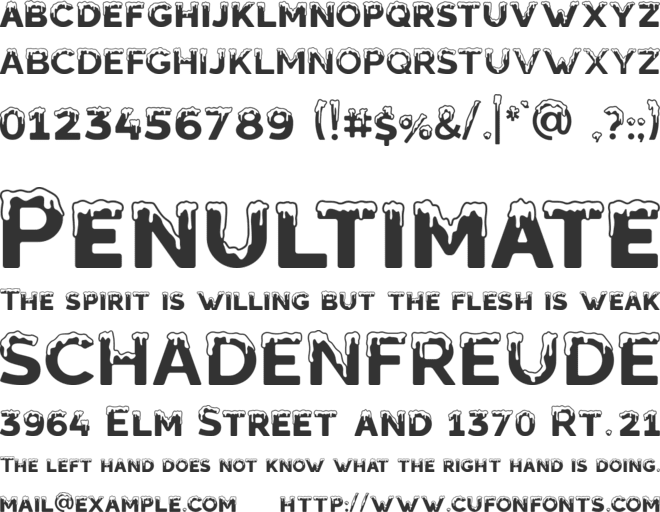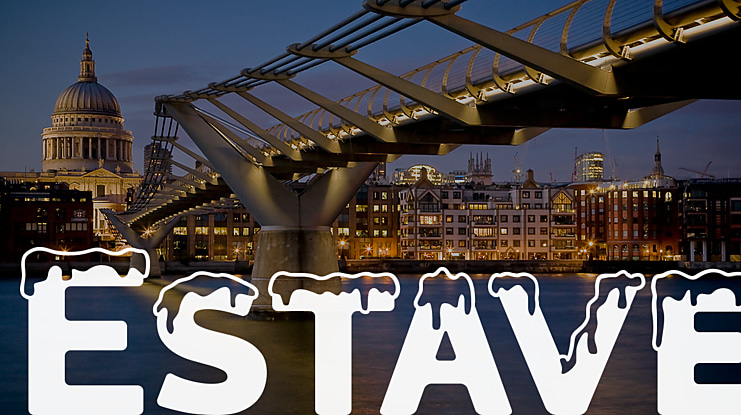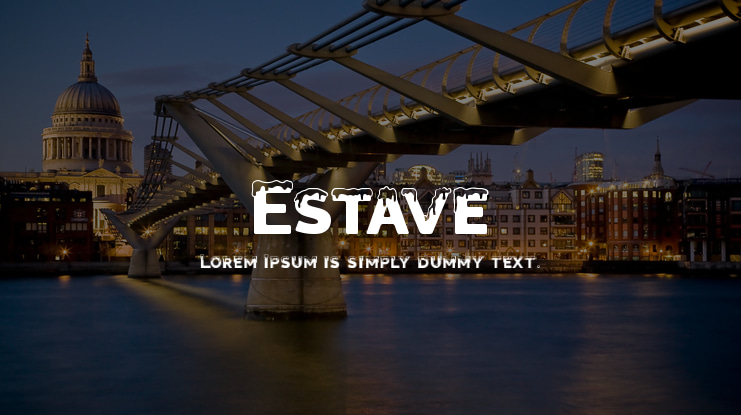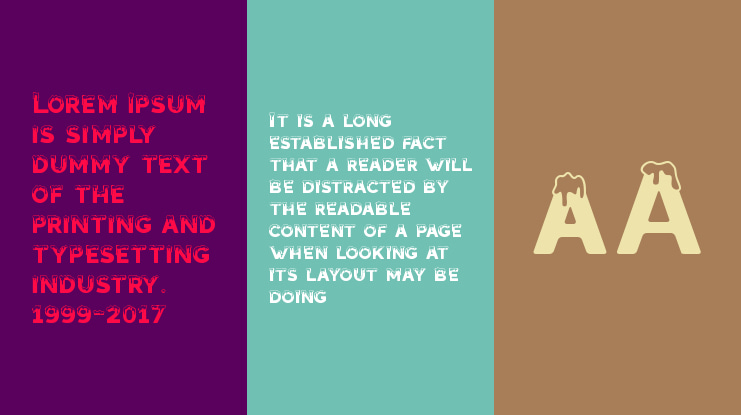
Estave Font
Winter is coming! ESTAVE font comes to make your winter more cool. A bold, strong character makes your title or headline more elegant. The snow ornament in the top of the font brings winter ambiance more strong. Happy writing! :-)